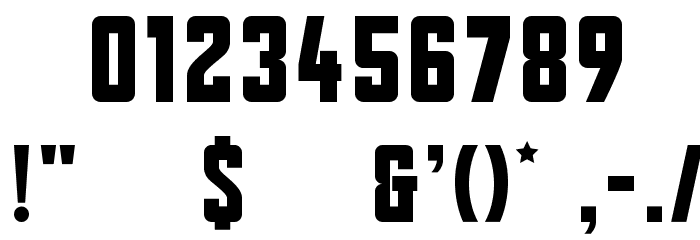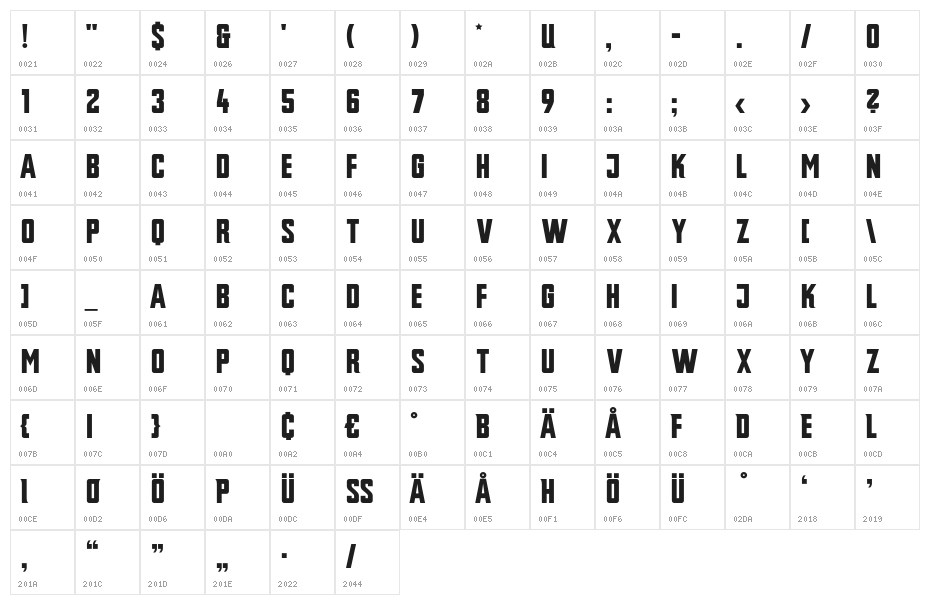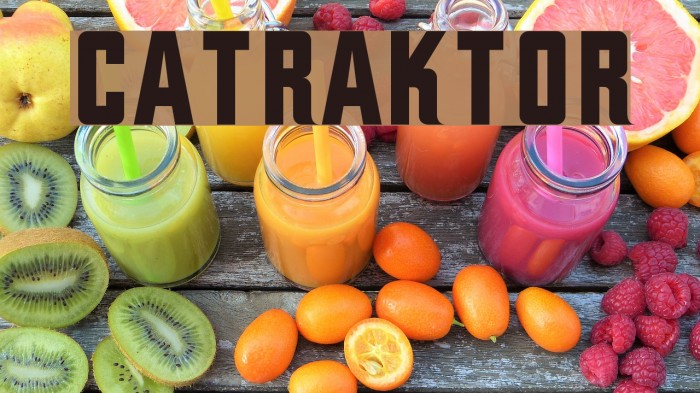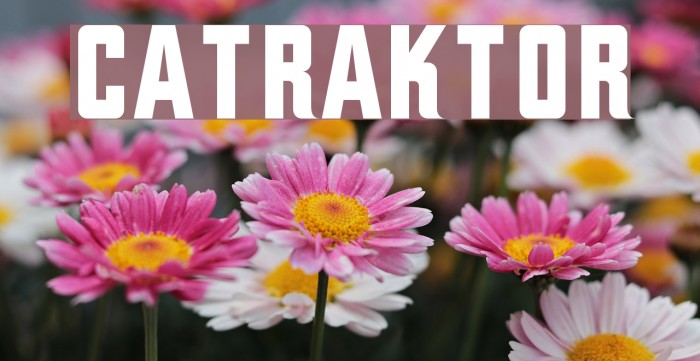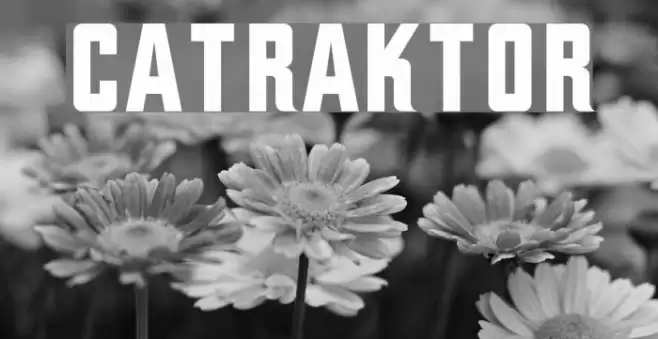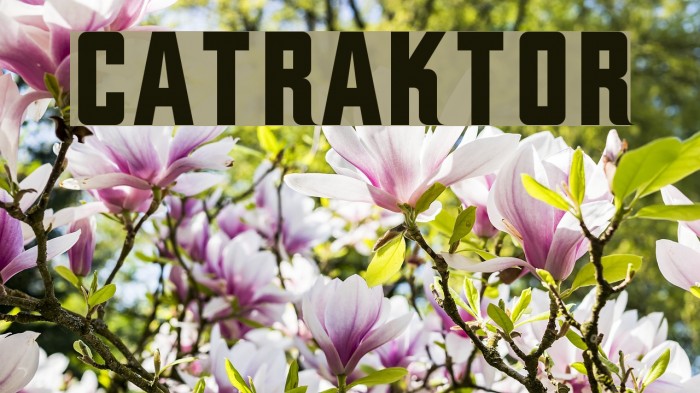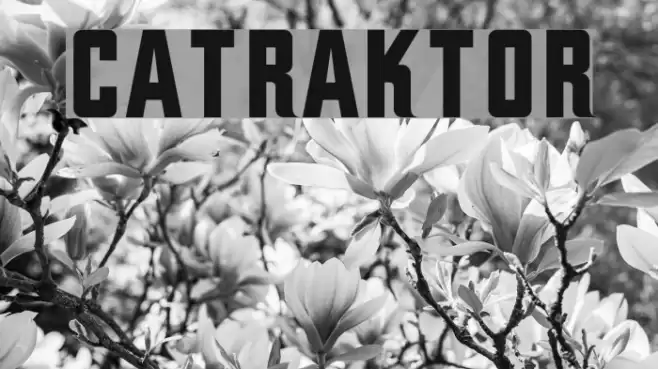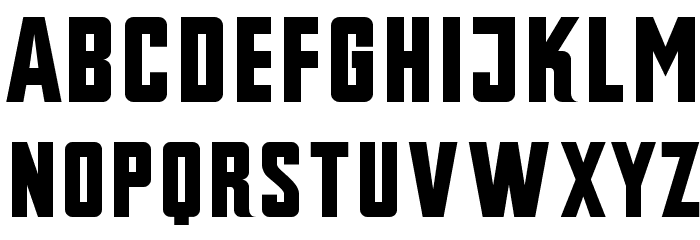
CATraktor Font
CATraktor Description
This font features a bold and impactful design with strong geometric shapes and a modern aesthetic. The uppercase letters are uniform in height, with a consistent stroke width that gives a sense of stability and strength. The lowercase letters maintain the same boldness, ensuring readability and coherence across different text sizes. The numerals are equally robust, matching the style of the alphabetic characters. Special characters are designed with the same bold strokes, making them stand out effectively. Overall, the font conveys a sense of power and modernity, suitable for making a strong visual statement.